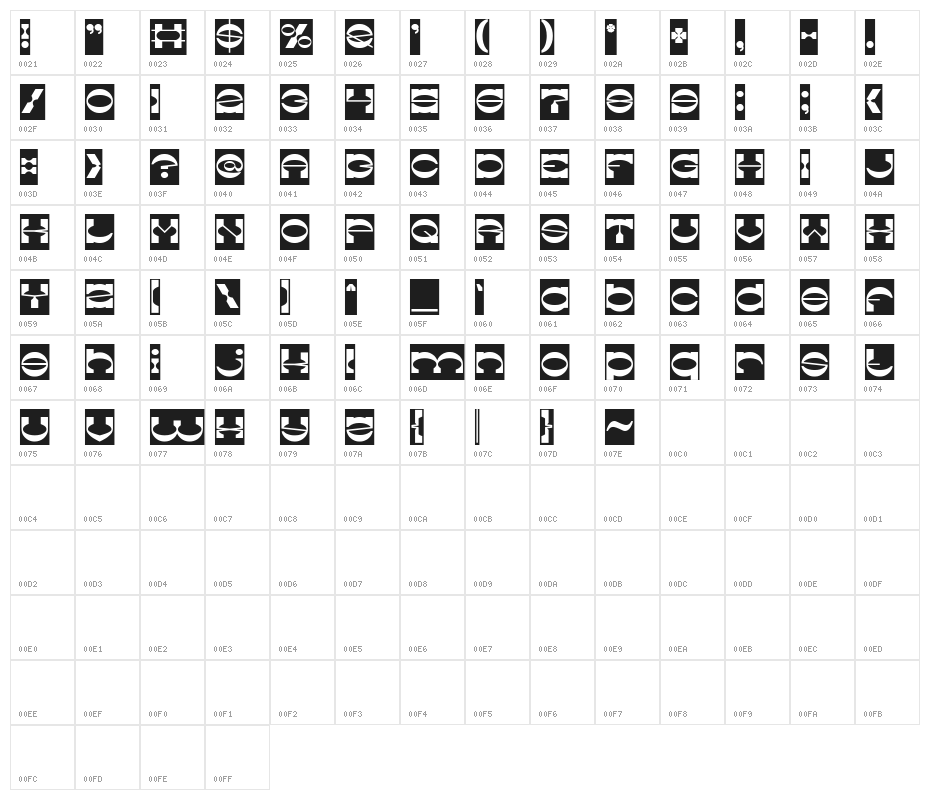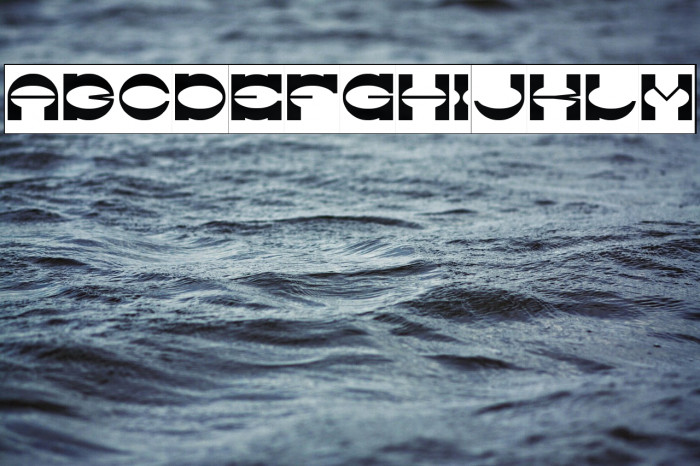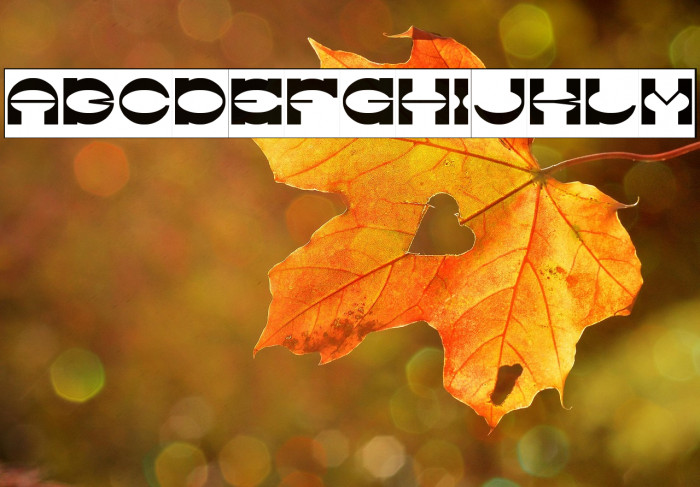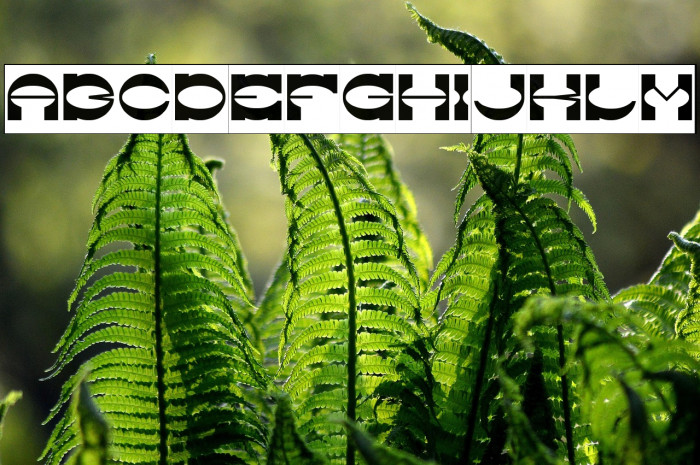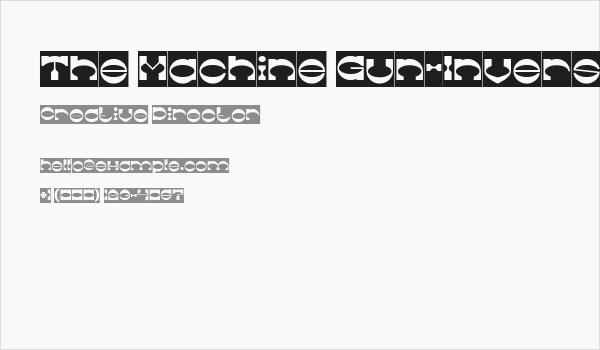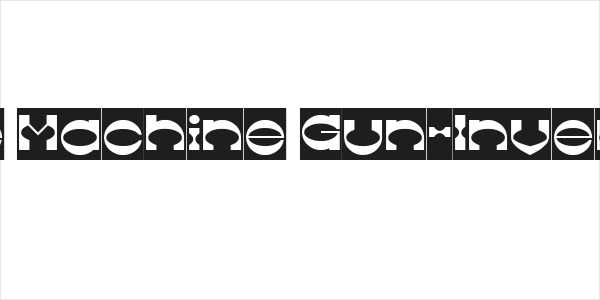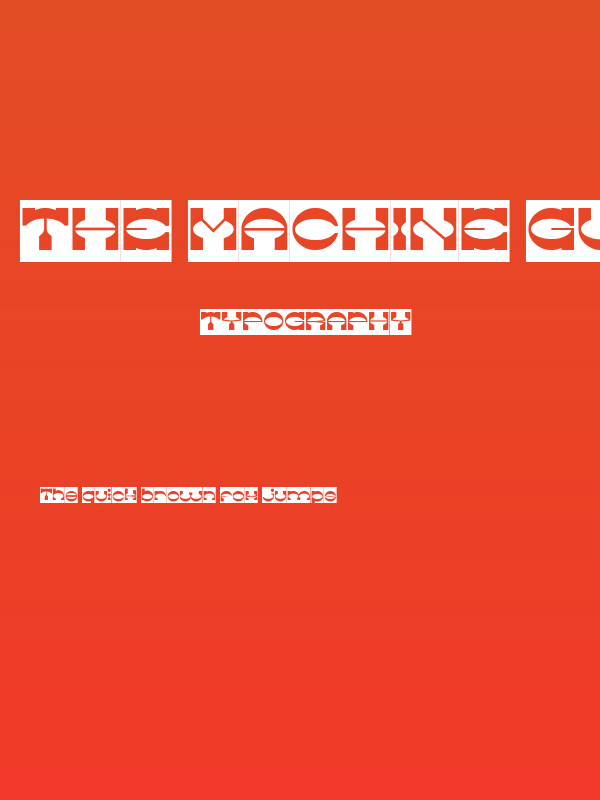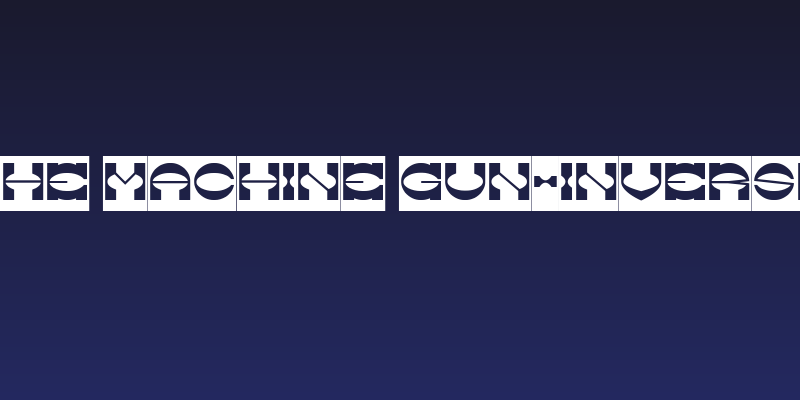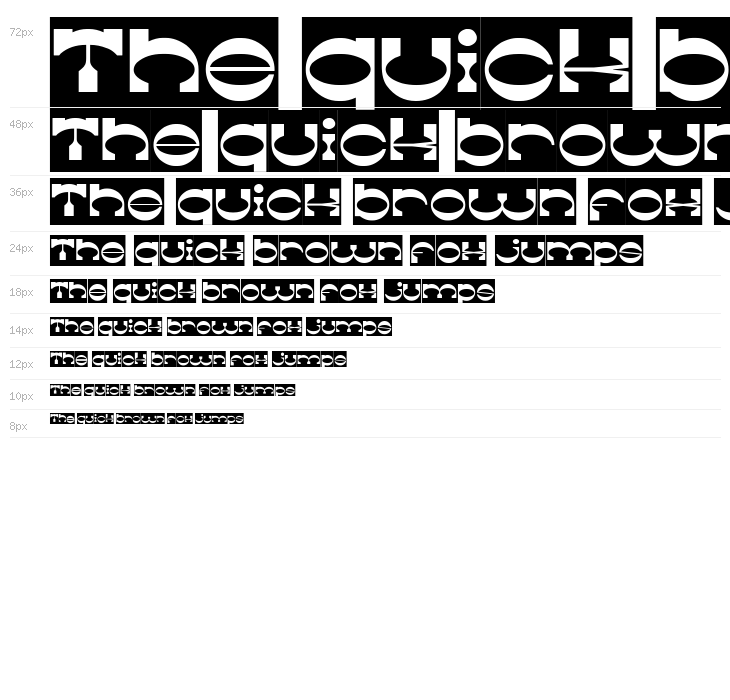
The Machine Gun-Inverse Font
The Machine Gun-Inverse Description
This font features a bold and striking design with a futuristic and geometric aesthetic. The characters are crafted with thick strokes and sharp angles, creating a sense of movement and energy. The unique cut-out sections within each letterform add a dynamic and modern touch, making it stand out in any design. The uppercase and lowercase letters maintain a consistent style, while the numerals and special characters complement the overall look. This font is perfect for projects that require a bold statement and a contemporary feel.